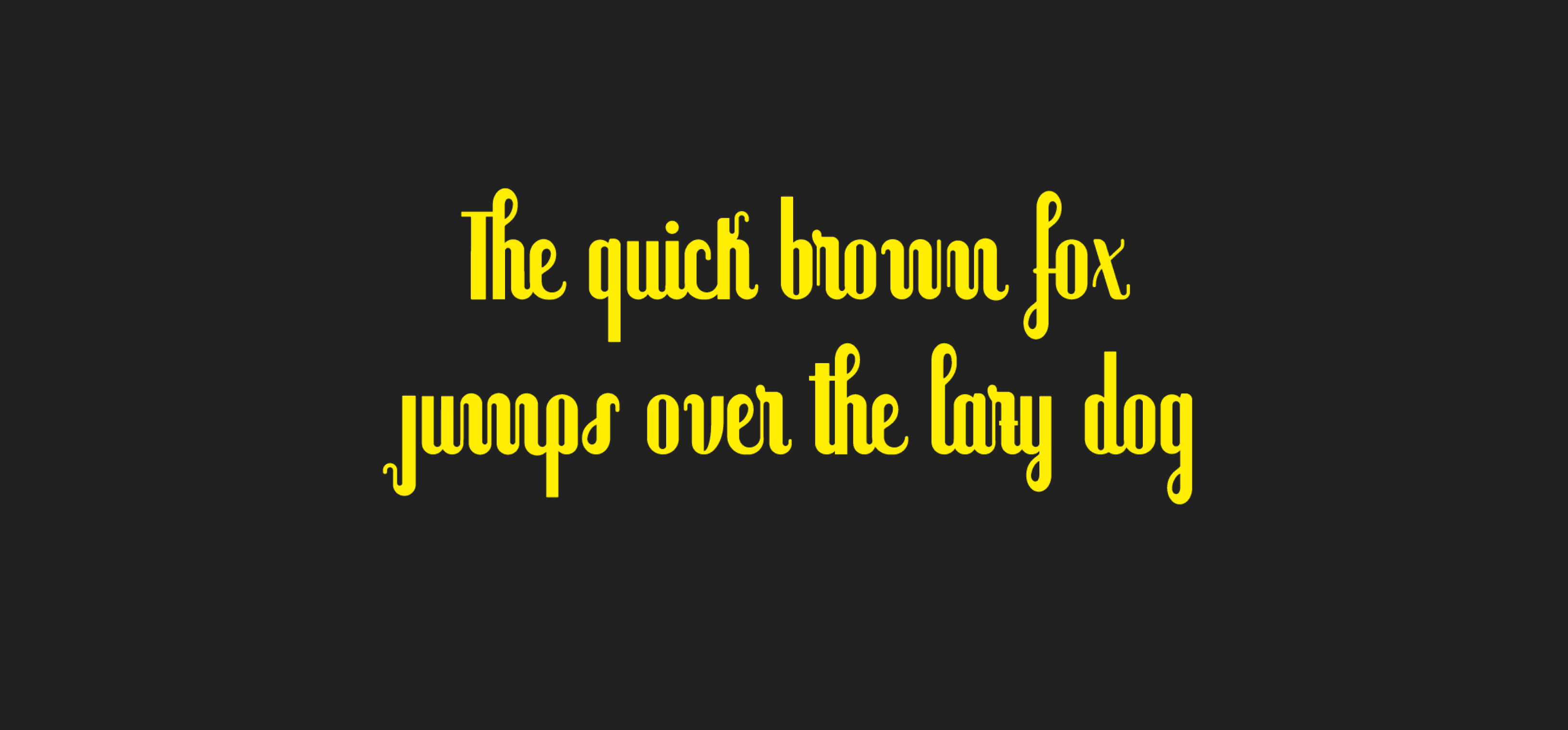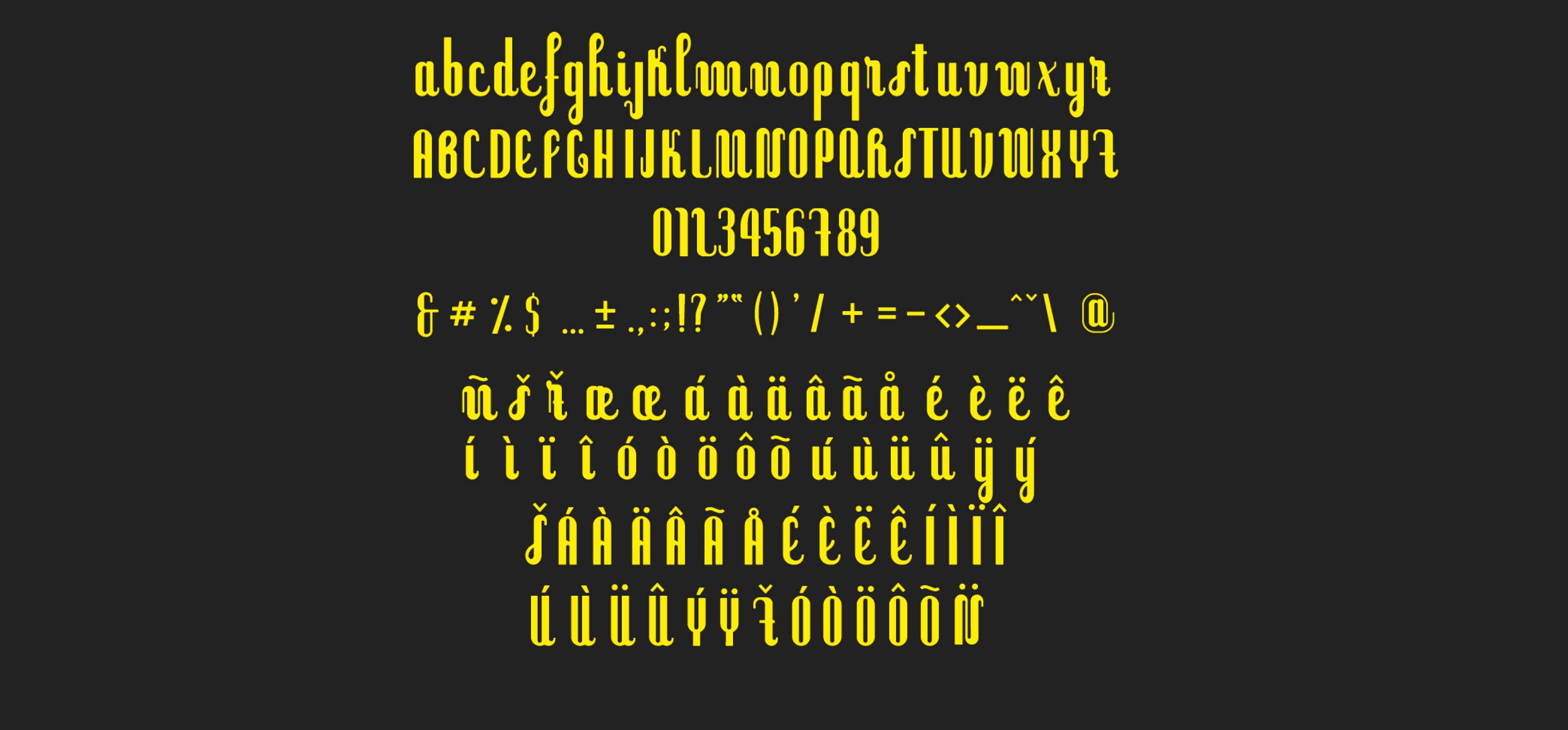
Palmarola is a new Serif Roundend font, I was inspired from the Italian old school lettering flavour. This is perfect for genuine brand and very impactful headline.
The kerning and the automatic ligatures provide at professional text fitting.